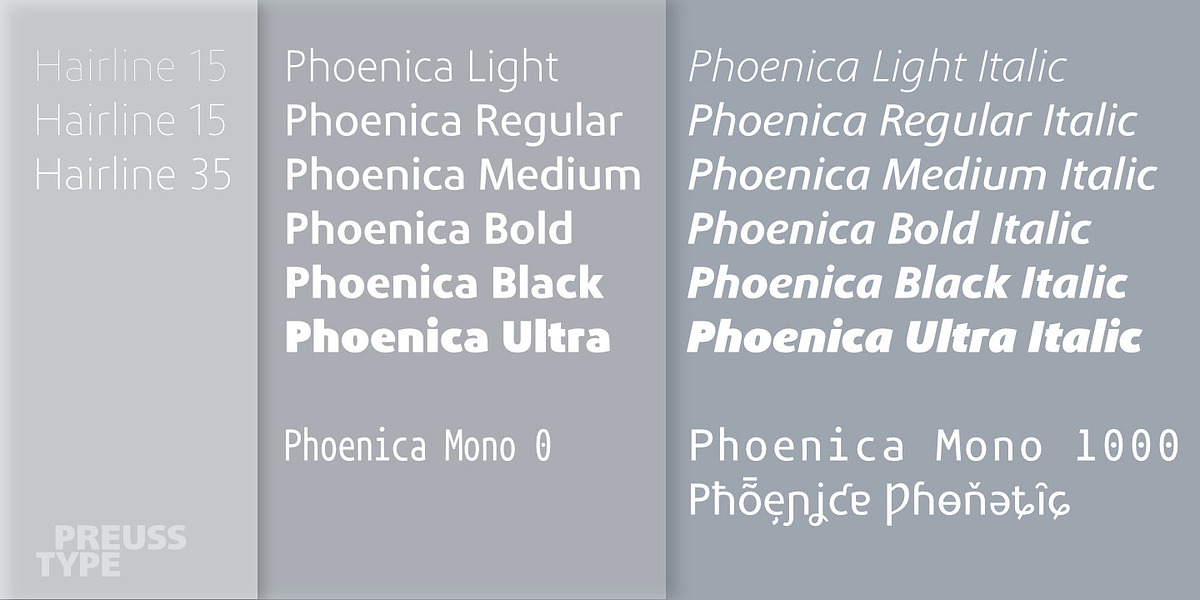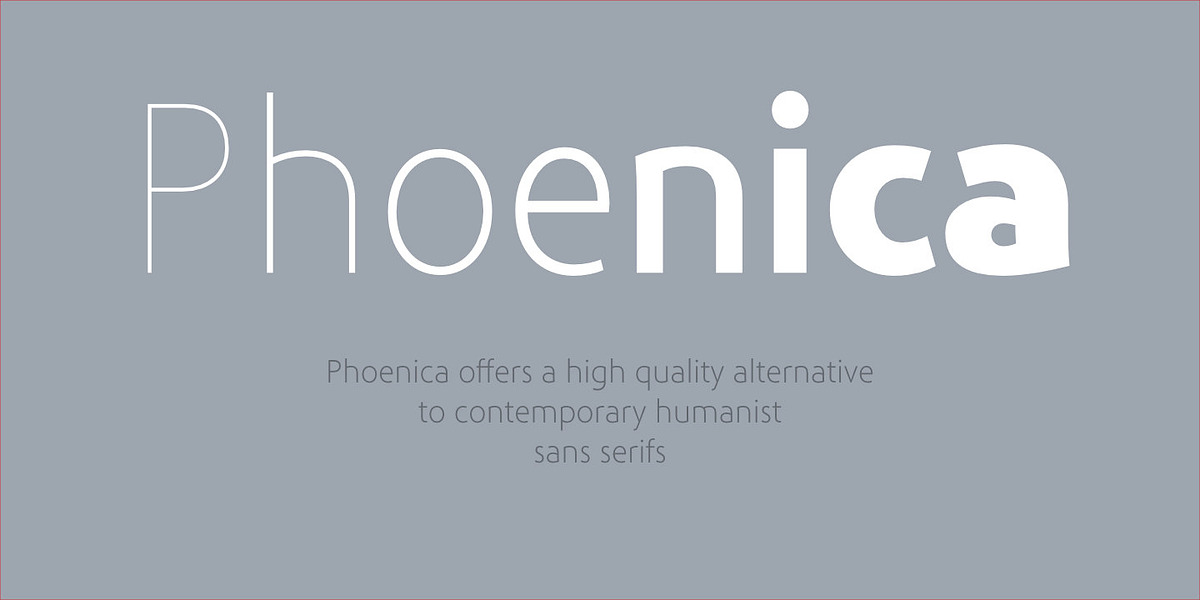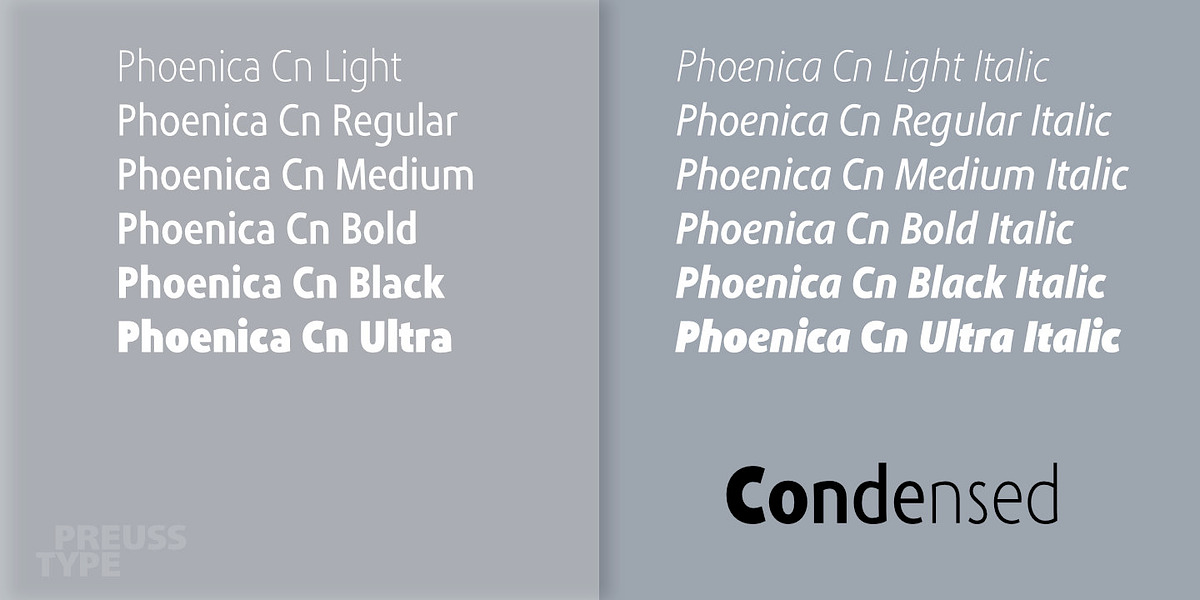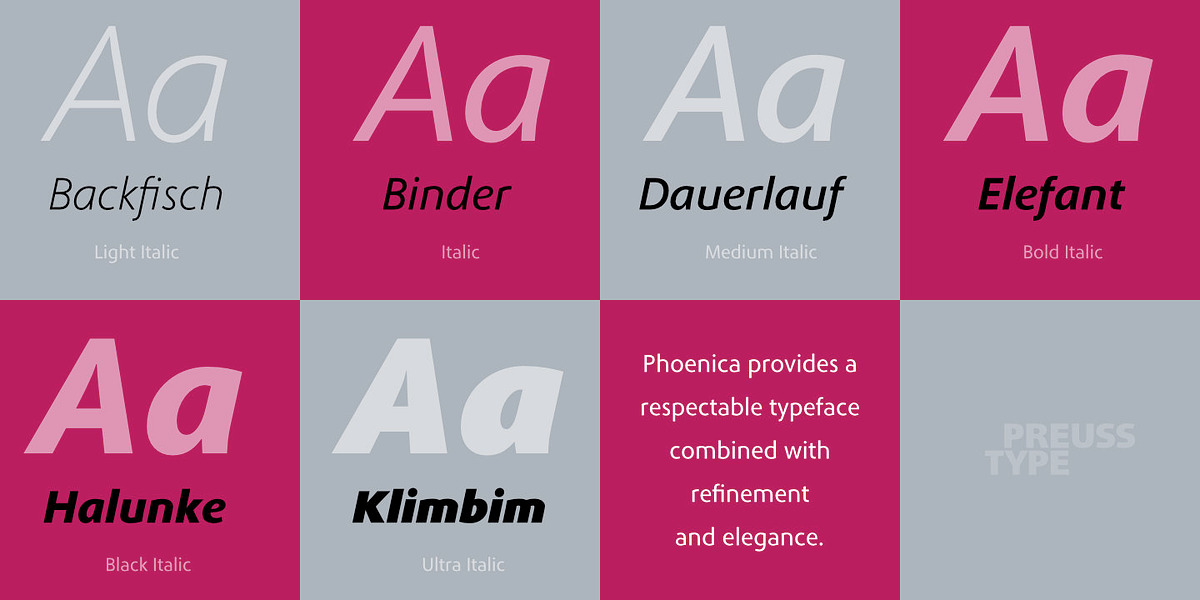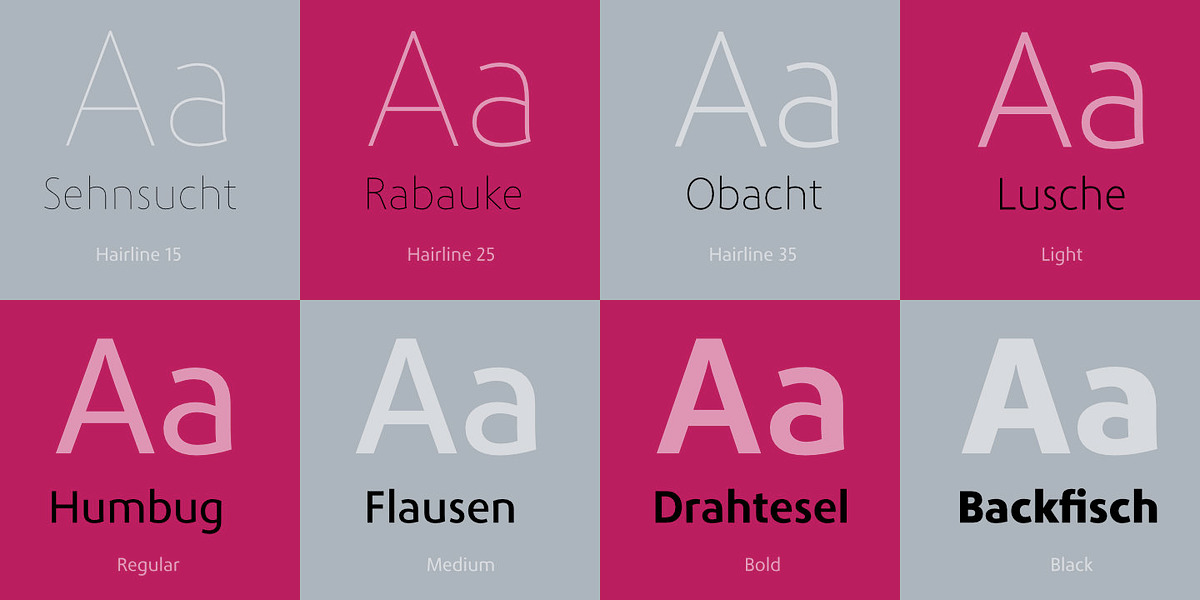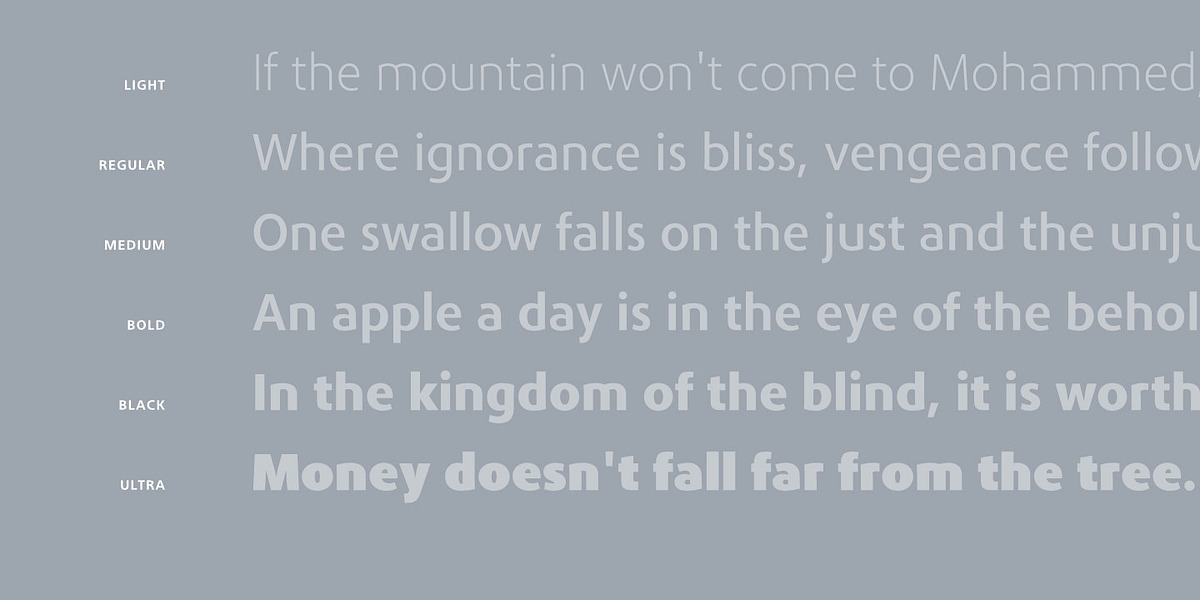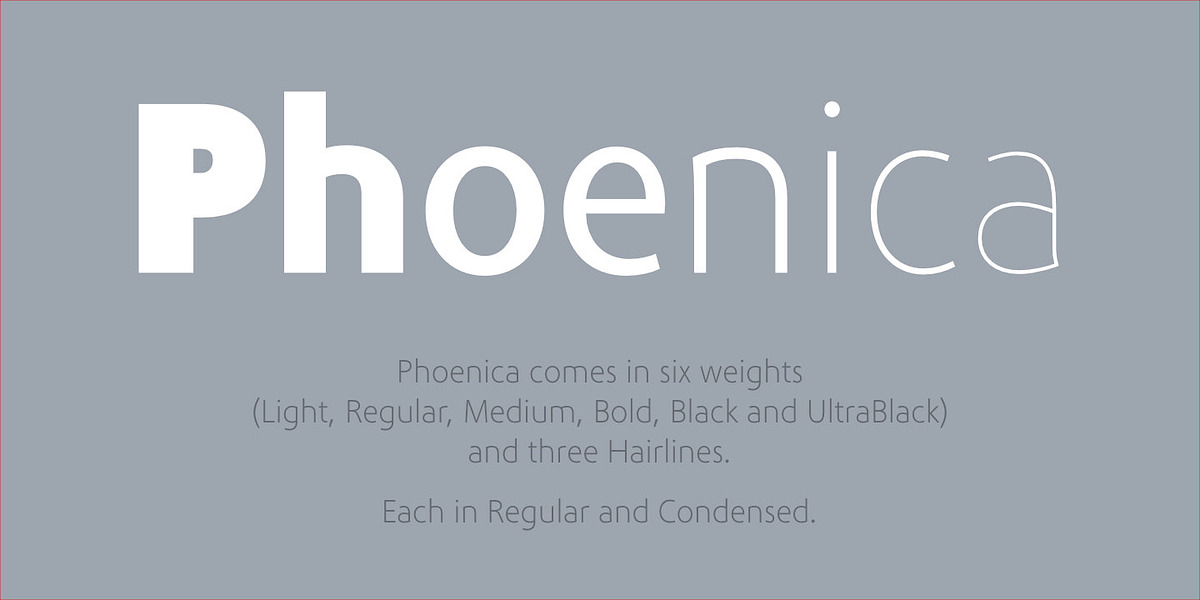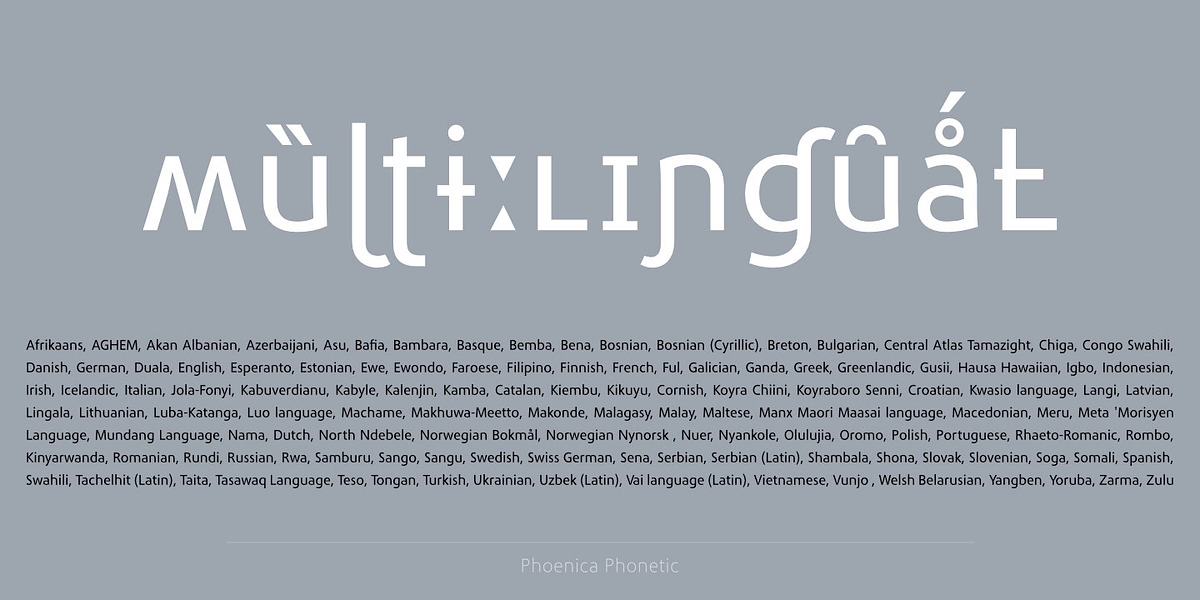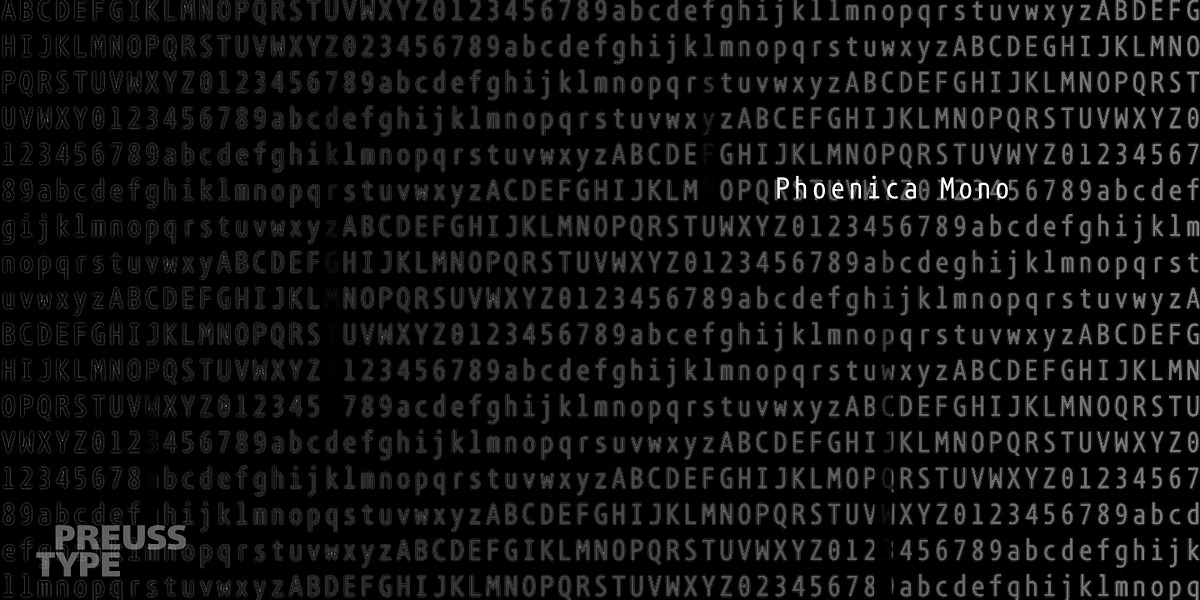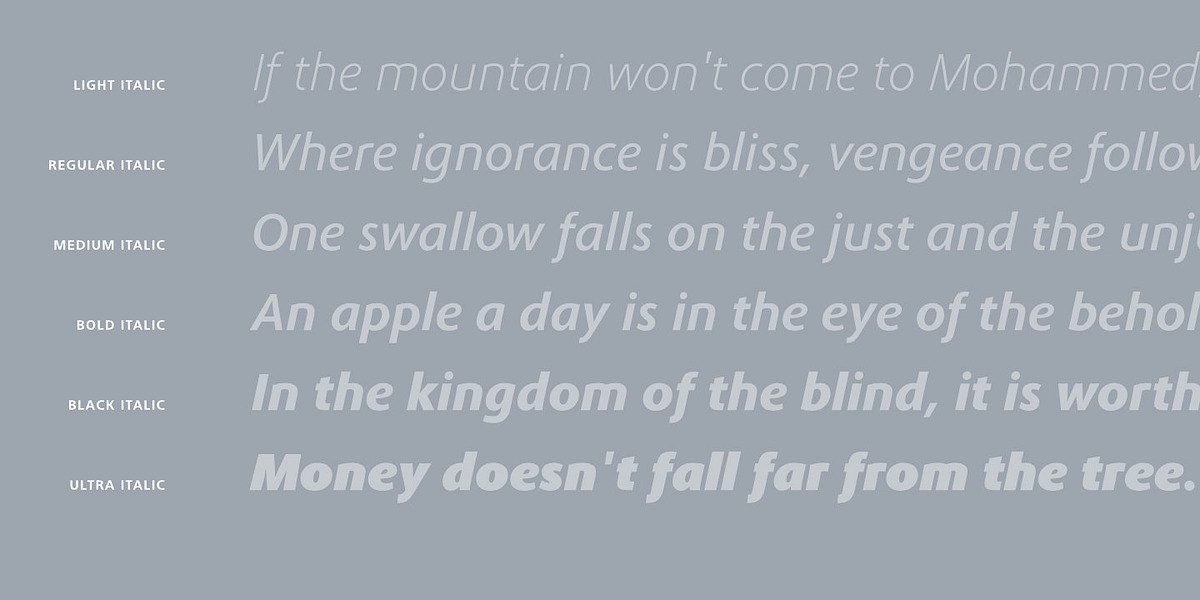
Phoenica PRO
Phoenica is a versatile humanist sans-serif typeface family designed for both text and corporate applications. It offers excellent readability due to its careful optimization for long passages of text. The family includes regular and condensed styles, as well as a unique monospaced subfamily with an expanding width range. Phoenica's clean, refined aesthetic makes it suitable for a wide variety of uses, from newspapers and magazines to corporate branding.